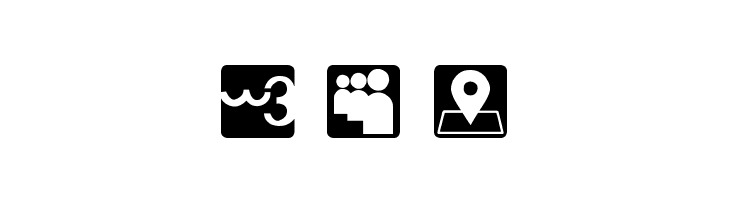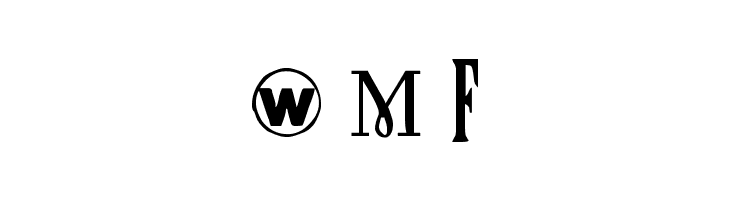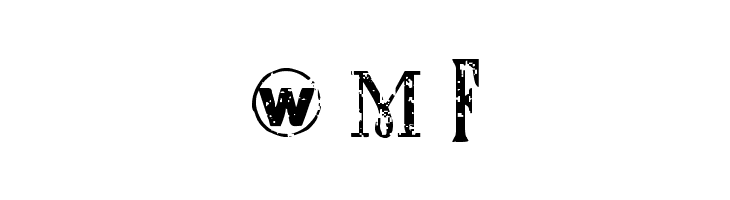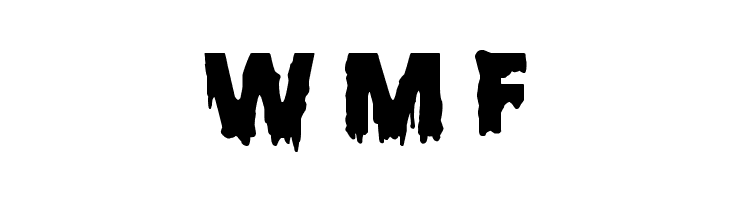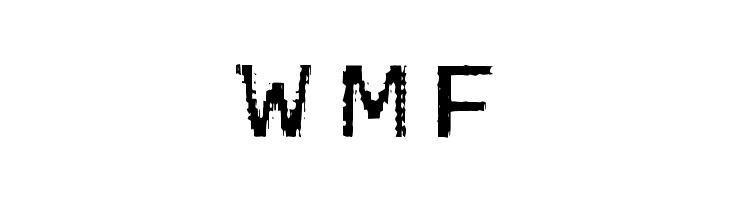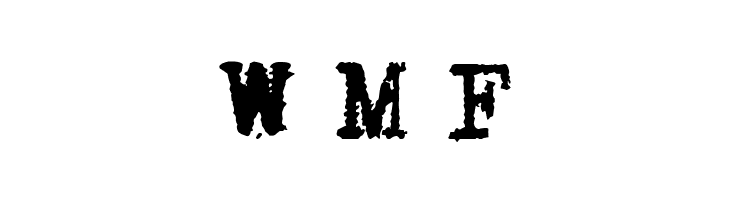
Scary Halloween Font Bold Font
phelanriessen.com
A bold, dripping font perfect for spooky Halloween designs.
Halloween Too Font
Font by Phelan Riessen
A spooky, dripping font ideal for Halloween themes.
Social Icons Pro Set 1 - Rounded Font
phelanriessen.com
Rounded, high-contrast social and web icon set in a modern minimalist style.
Yet Another Ransom Note Font
phelanriessen.com
A playful, eclectic font mimicking cut-out letters with diverse styles.
Hallowed Eve Sample Font
Phelan Riessen - phelanriessen.com
A bold, dripping font ideal for spooky, Halloween-themed designs.
Distressed Ransom Note Font
phelanriessen.com
A distressed, eclectic font with a vintage ransom note style.
Joe "Caps" Underwood Font
Phelan Riessen - phelanriessen.com
A bold, distressed font with a vintage, grunge aesthetic.
BadPad Distressed Font
Phelan Riessen - phelanriessen.com
A distressed, vintage-style font with a rugged, weathered appearance.